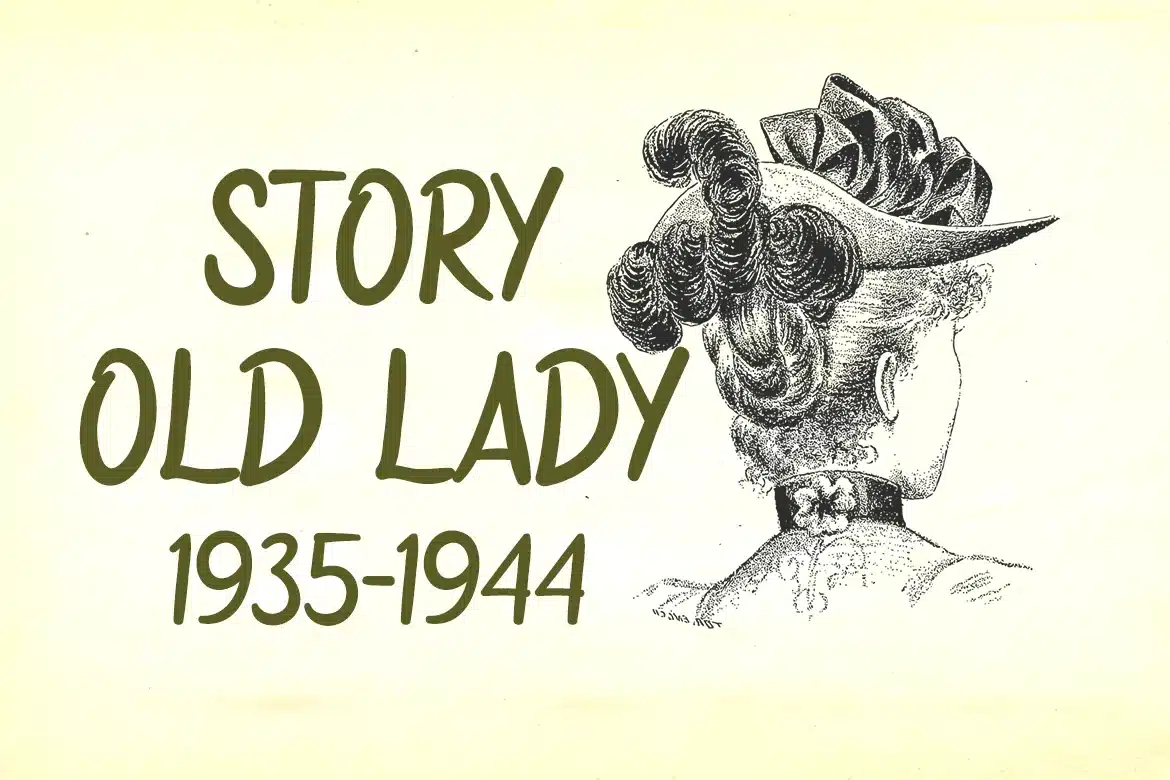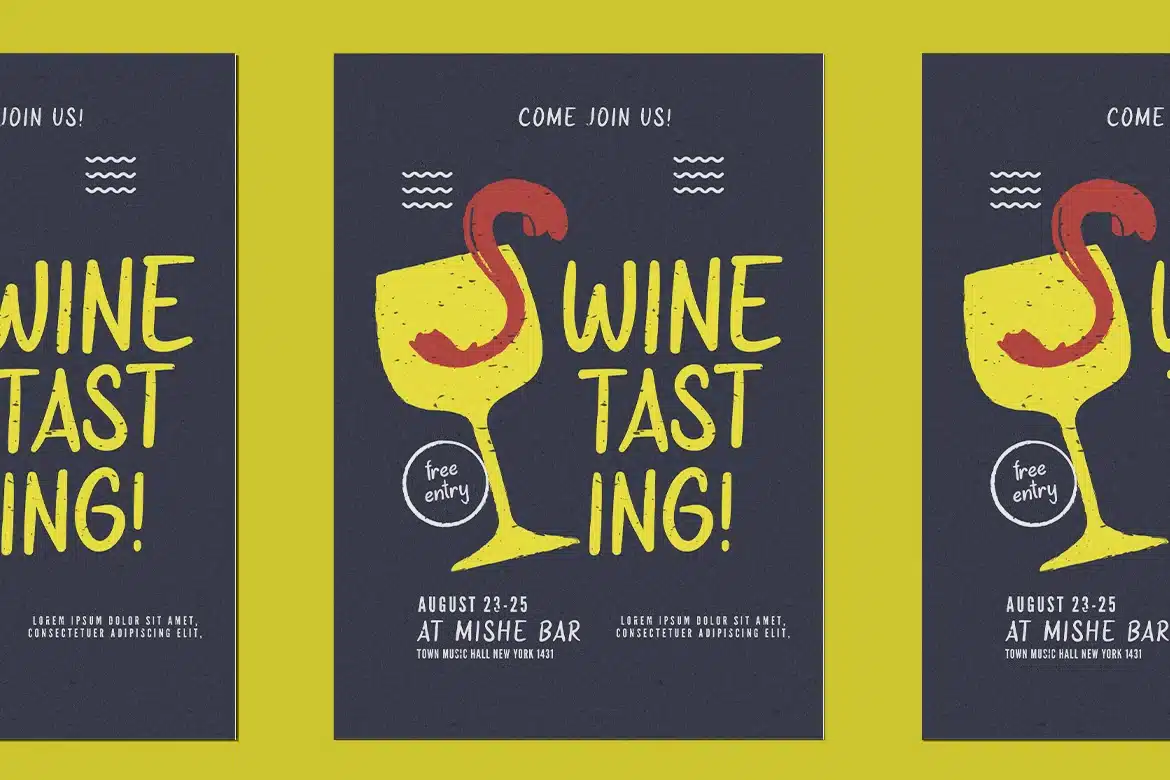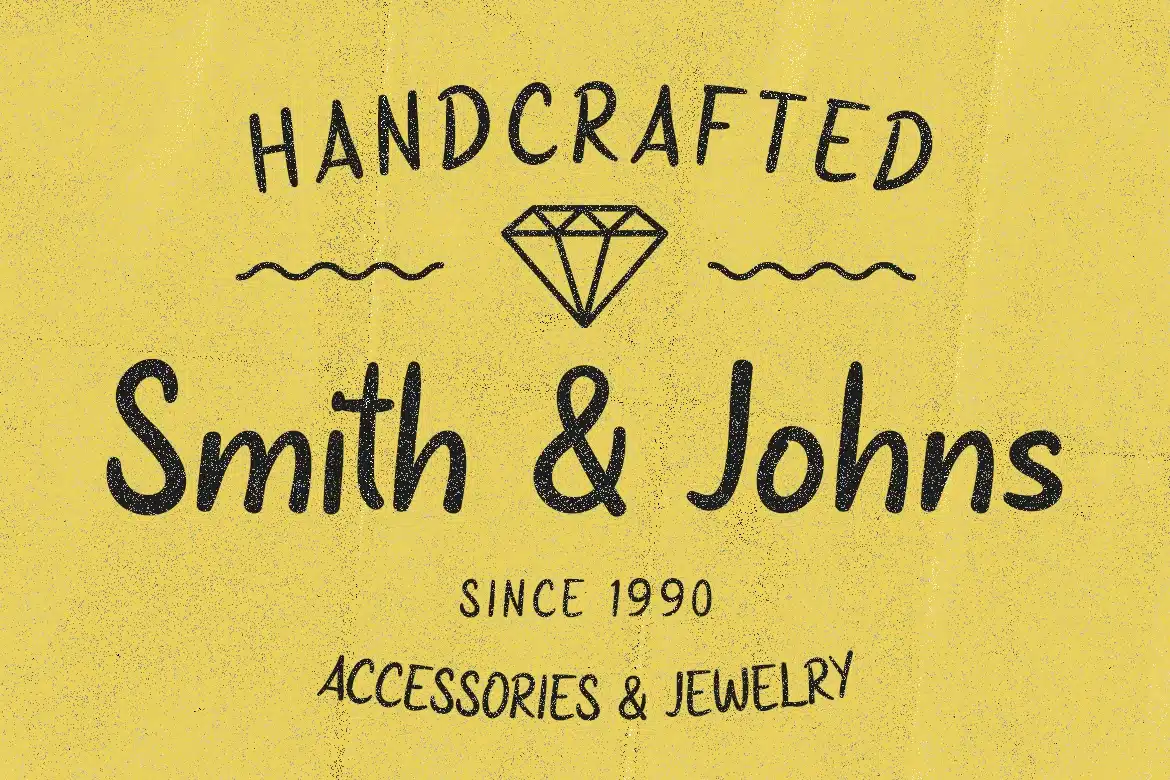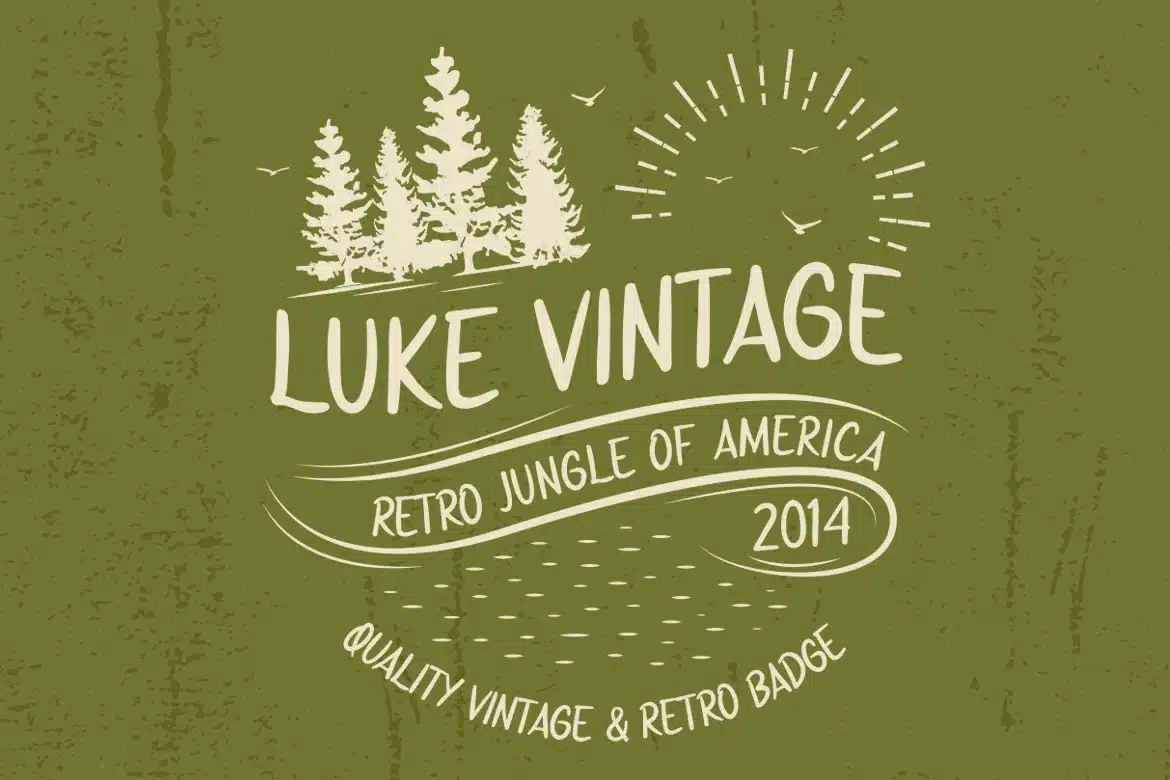
Vintage Font – Printon
Printon is a versatile vintage font that combines elements of the handwritten script and sans serif styles with the iconic aesthetics of the 70s. Perfect for creating logos that capture a retro vibe, this font is also ideal for adding a personal touch to quotes, crafting unique invitations, and designing eye-catching posters. Its badge-like quality makes it suitable for greetings, packaging, and branding that blend nostalgia with modern design principles. Printon is excellent for covers that require a distinct vintage look and is equally effective in event promotions, headlines, and advertising campaigns that need to convey a classic yet contemporary feel.